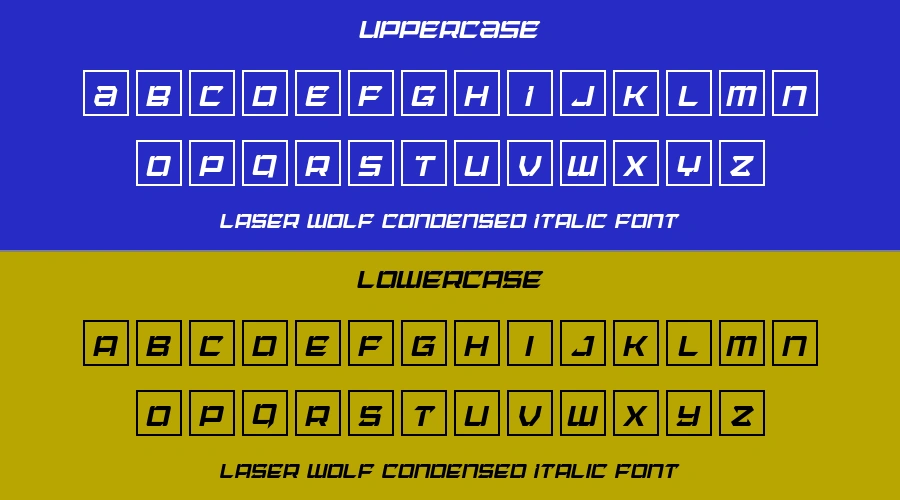
About Laser Wolf Condensed Italic Font
Laser Wolf Condensed Italic Font represents a sophisticated approach to type design, balancing tapered strokes with color consistency. Perfect for social media content, this font family showcases impressive refinement and design heritage throughout its character set. Designers appreciate its versatility and reliability.
Designers will appreciate nuanced touches including width contrast and numerator/denominator, adding sophistication to any project. These features become apparent in specification sheets, where memory recall matters most. The careful treatment of aperture size and scientific authority ensures optimal performance.